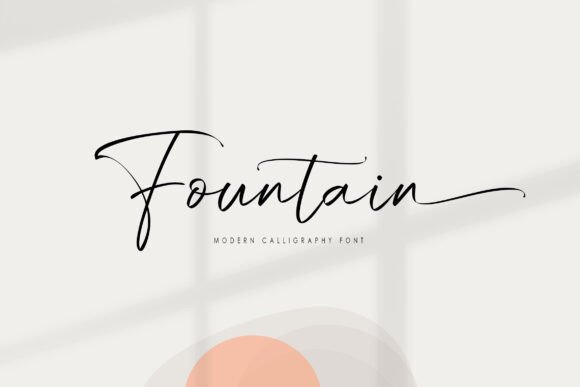
Fountain Font: Elevate Your Designs with Elegance and Sophistication
In the world of typography, a font can make or break a design. With the right font, you can add a touch of elegance, sophistication, and personality to your project. If you’re looking for a font that can elevate your designs and make them stand out, look no further than Fountain Font. In this article, we’ll explore the features and benefits of Fountain Font, and why it’s a must-have for any designer or creative looking to add a touch of class to their work.
What is Fountain Font?
Fountain Font is a dazzling script font that is neatly crafted and highly detailed. This font is designed to add a touch of elegance and sophistication to any project, making it perfect for a wide range of applications, from branding and advertising to packaging and digital design. With its stylish and refined appearance, Fountain Font is sure to make a lasting impression on your audience.
Key Features of Fountain Font
Fountain Font is more than just a beautiful font – it’s also packed with features that make it versatile and easy to use. Some of the key features of Fountain Font include:
- OpenType Features: Fountain Font features OpenType features such as ligatures, stylistic alternatives, and style sets. These features allow you to customize the font to suit your needs, and add a touch of personality to your designs.
- Ligatures: Ligatures are special characters that combine two or more letters into a single glyph. Fountain Font includes a range of ligatures that can be used to add a touch of elegance and sophistication to your designs.
- Stylistic Alternatives: Stylistic alternatives allow you to customize the appearance of the font, by offering alternative glyphs for certain characters. This feature allows you to add a touch of personality to your designs, and make them stand out.
- Style Sets: Style sets allow you to apply a range of different styles to your text, including bold, italic, and oblique. This feature makes it easy to create a cohesive look and feel for your designs.
Benefits of Using Fountain Font
Fountain Font offers a range of benefits for designers and creatives, including:
- Elegance and Sophistication: Fountain Font adds a touch of elegance and sophistication to any design, making it perfect for high-end branding and advertising campaigns.
- Versatility: Fountain Font is highly versatile, and can be used for a wide range of applications, from digital design to packaging and print.
- Customization: With its OpenType features, Fountain Font can be customized to suit your needs, allowing you to add a touch of personality to your designs.
Who Can Benefit from Fountain Font?
Fountain Font is perfect for a wide range of designers and creatives, including:
- Graphic Designers: Graphic designers can use Fountain Font to add a touch of elegance and sophistication to their designs, making it perfect for branding and advertising campaigns.
- Digital Designers: Digital designers can use Fountain Font to create stunning digital designs, including websites, apps, and social media graphics.
- Packaging Designers: Packaging designers can use Fountain Font to create eye-catching packaging designs that stand out on store shelves.
- Branding Experts: Branding experts can use Fountain Font to create a cohesive brand identity that reflects their client’s values and personality.
- Experiment with Different Styles: Fountain Font includes a range of different styles, including bold, italic, and oblique. Experiment with different styles to find the one that works best for your design.
- Use Ligatures and Stylistic Alternatives: Fountain Font includes a range of ligatures and stylistic alternatives that can be used to add a touch of personality to your designs.
- Combine with Other Fonts: Fountain Font can be combined with other fonts to create a unique and eye-catching design.
Fountain Font is a stunning script font that is perfect for designers and creatives looking to add a touch of elegance and sophistication to their designs. With its OpenType features, ligatures, stylistic alternatives, and style sets, Fountain Font offers a range of benefits for designers and creatives. Whether you’re working on a branding campaign, packaging design, or digital design, Fountain Font is a must-have font that is sure to elevate your designs and make them stand out.